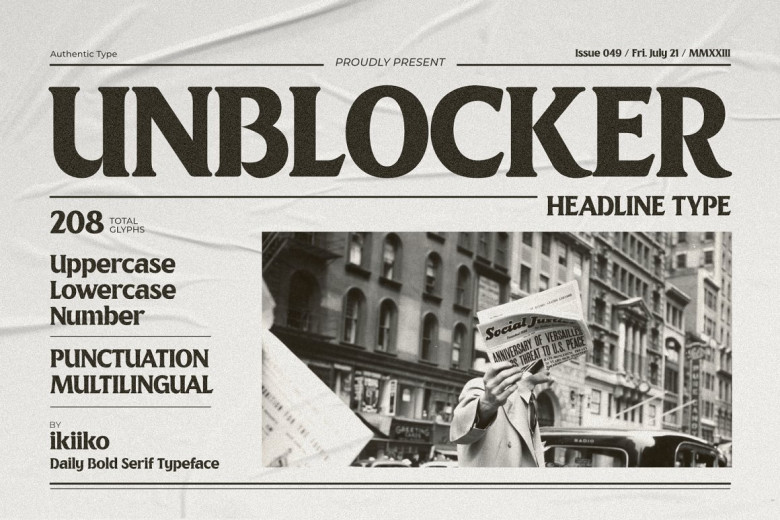
Unblocker Font
Unblocker Serif Typeface was developed by Ikiiko. Unblocker stands out with its striking presence and timeless style; each letter of this typeface exudes strength while still remaining elegant. Unblocker draws viewers in.
Unblocker’s precise weighted strokes create a sense of stability, making it an excellent choice for striking headlines or banners that require making an impression. Unblocker has many uses beyond headlines or banners such as magazine layouts or collateral promoting branding. Unblocker’s inherent versatility enables it to complement a range of design styles and make an immediate visual impactful statement with any design project you undertake.
Unblocker stands out as an attractive and striking typeface whether you are creating the cover of a magazine, logos, posters or striking headlines or layout of newspapers, creating book covers; branding logos packages quotes as well as text overlays onto backgrounds images of any kind.
Unblocker Serif Font